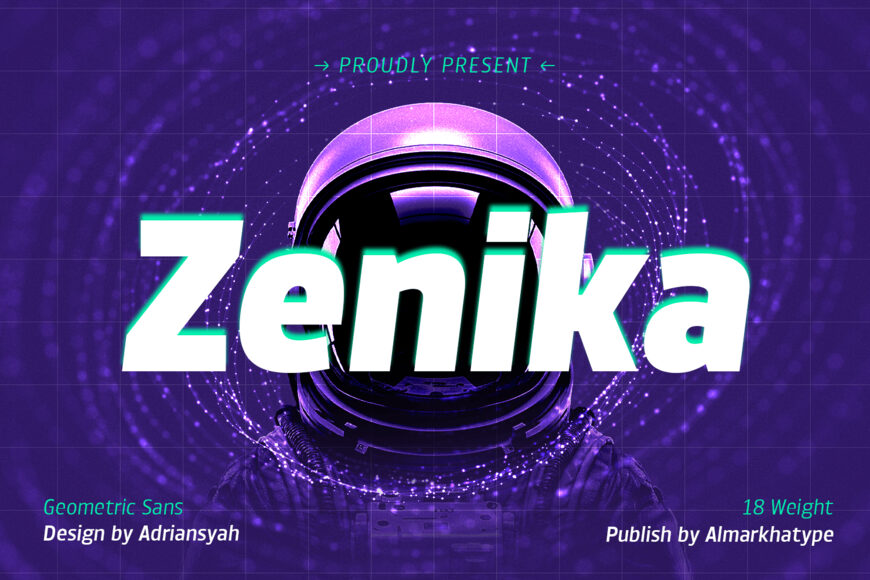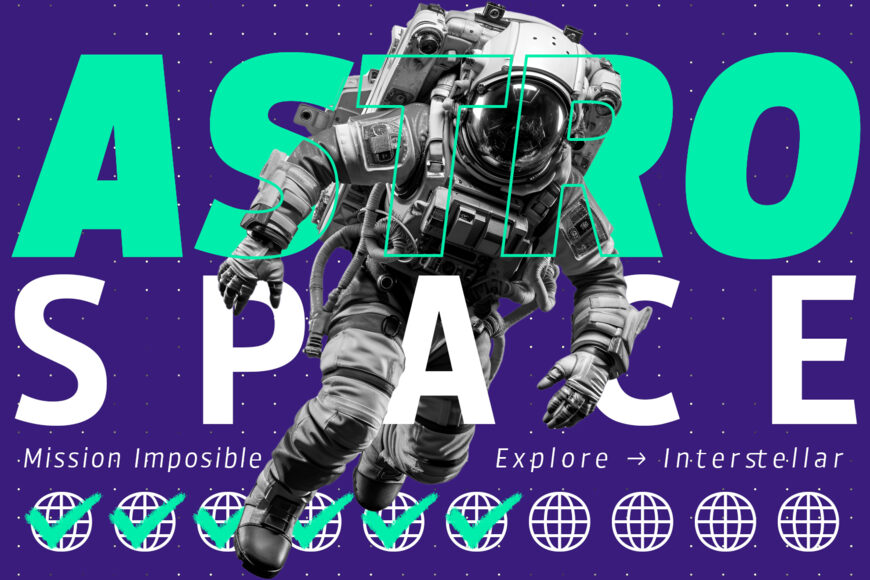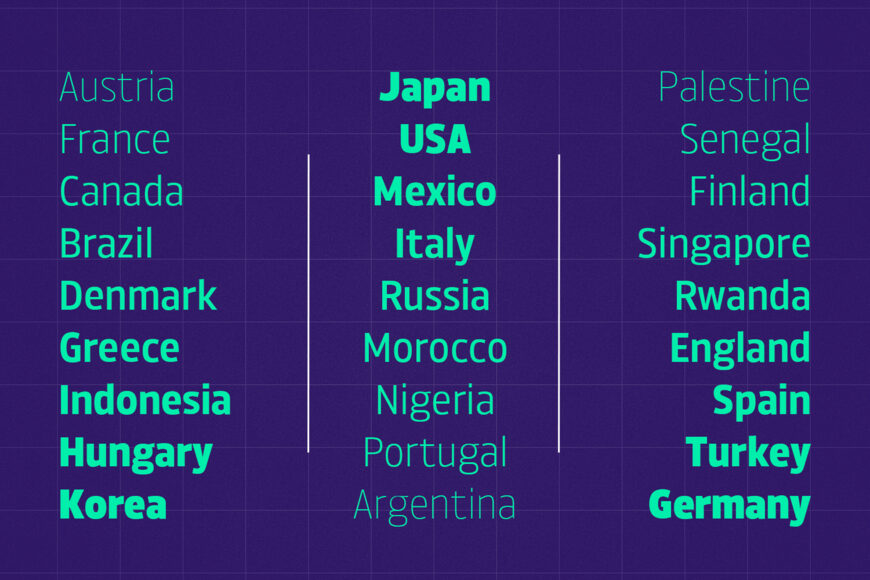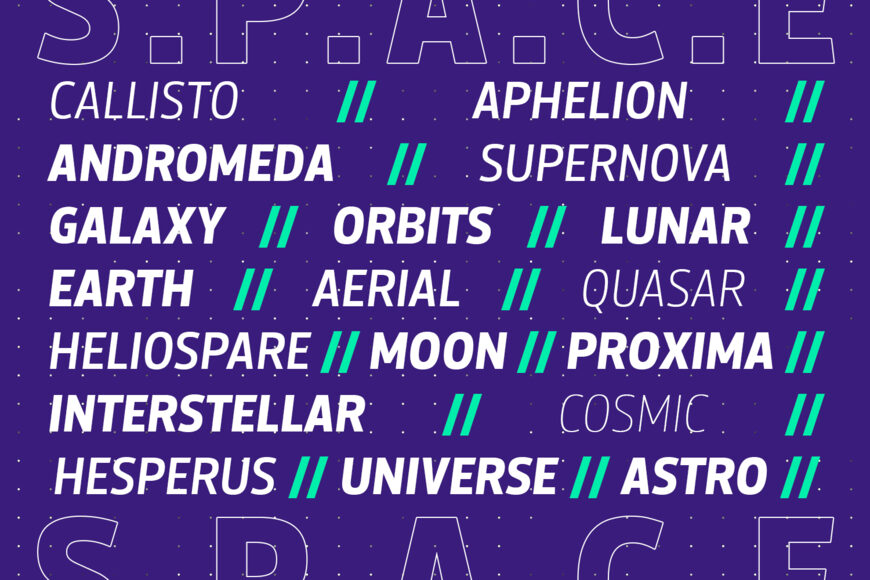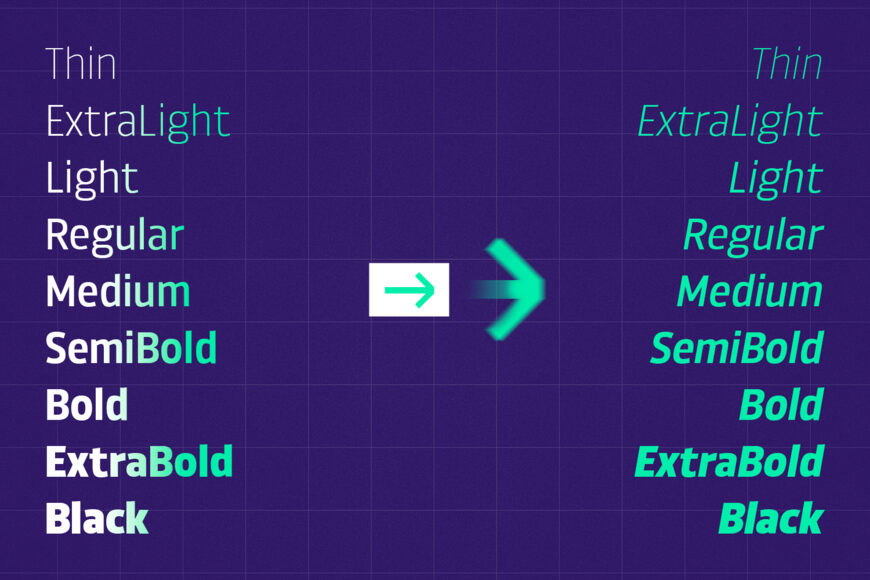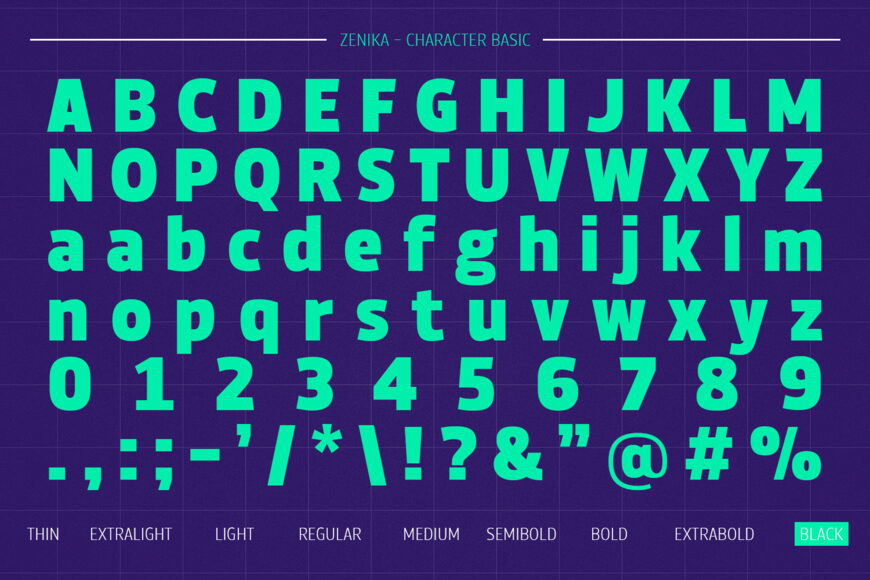
Introducing Zenika, a sleek and modern geometric sans typeface designed with versatility in mind. With its clean lines and balanced proportions, Zenika offers a sophisticated look suitable for a wide range of design projects.
This typeface features 18 styles, 9 weights, and includes italics, providing you with ample options to achieve the perfect balance between elegance and impact. From light and airy to bold and commanding, Zenika offers flexibility to suit various design needs. Whether you’re creating headlines, body text, logos, posters, or web graphics, Zenika ensures a seamless and polished result every time.